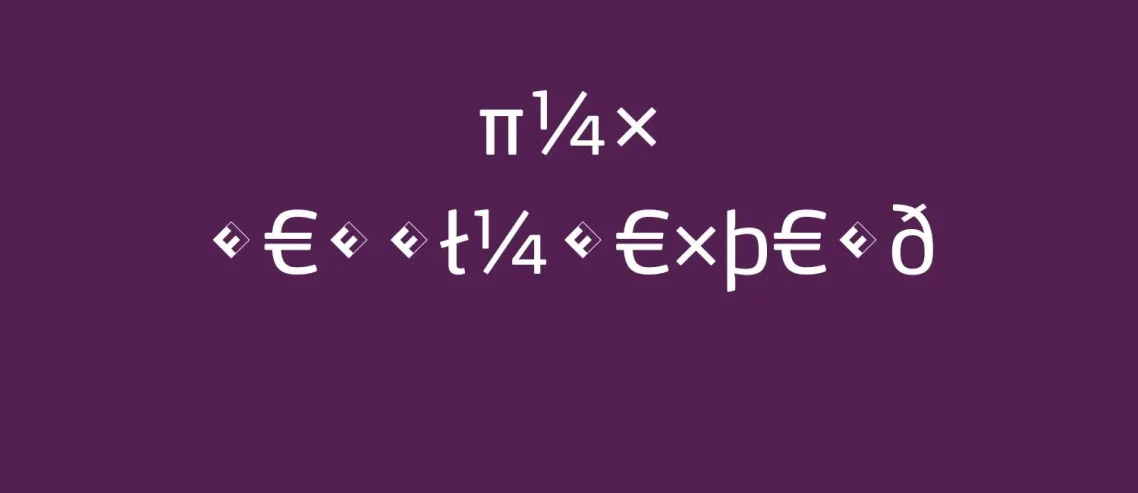
Prepare yourself for a bold and dynamic typeface with the Max Regular Expert Font. Falling into the category of sans-serif fonts, Max Regular Expert is designed for maximum impact and clarity.
Its regular weight strikes a balance, making it suitable for various design applications, from headlines and logos to body text. With Max RegularExpert, you can achieve a modern and straightforward look in your projects.
View of Max Regular Expert Font